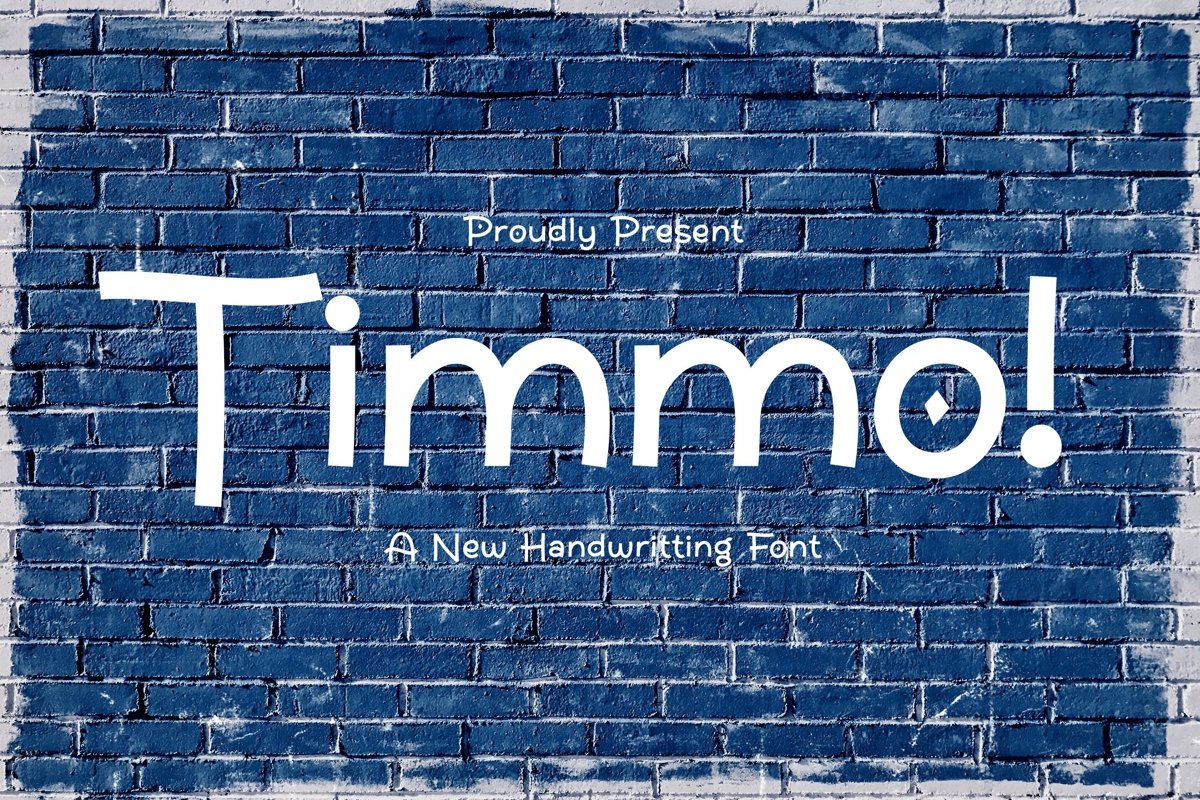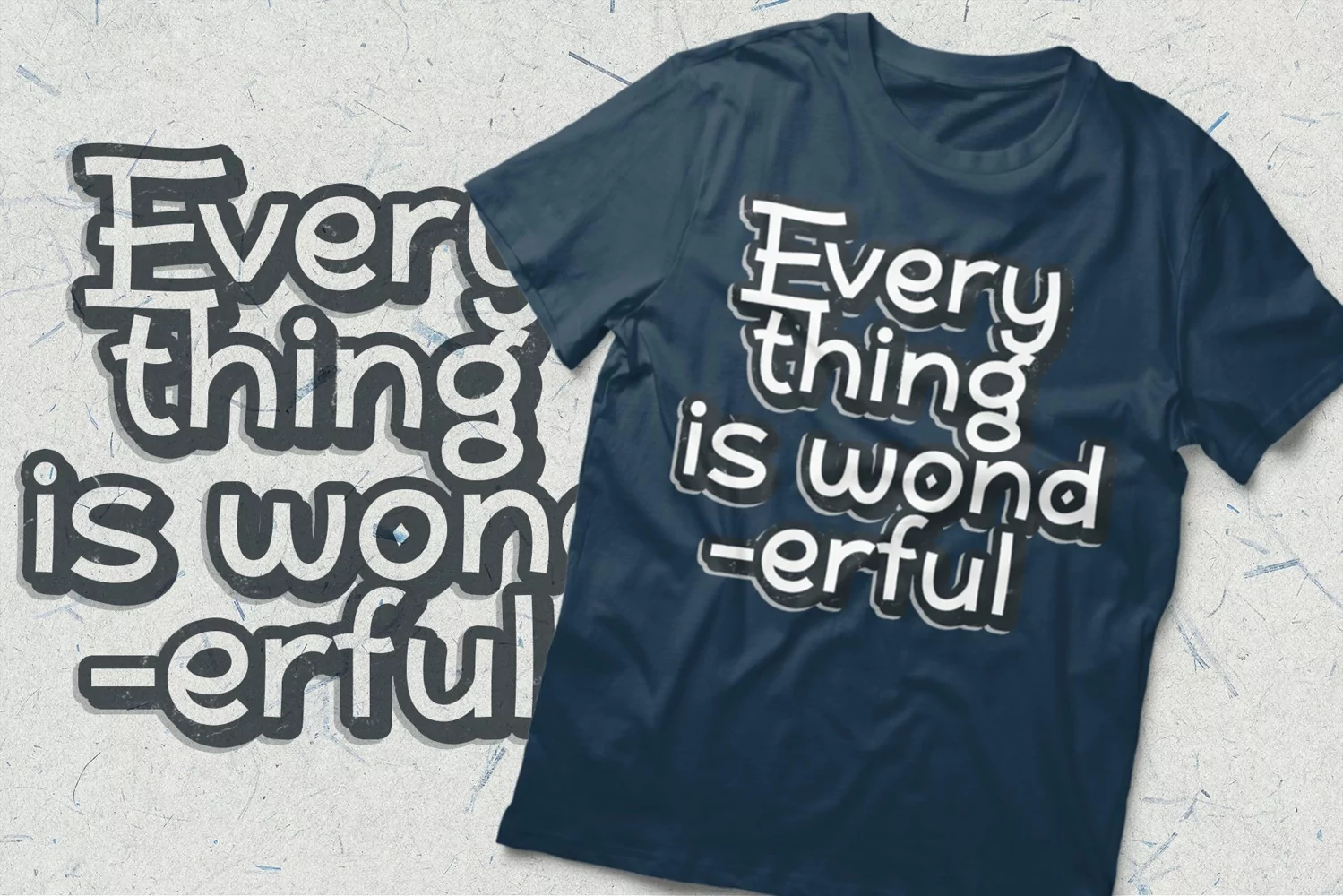
Timmo is a fancy display typeface. Perfect for display, poster, header, packaging, merchandise, print, t-shirt, quotes, logo, logotype, and many more.